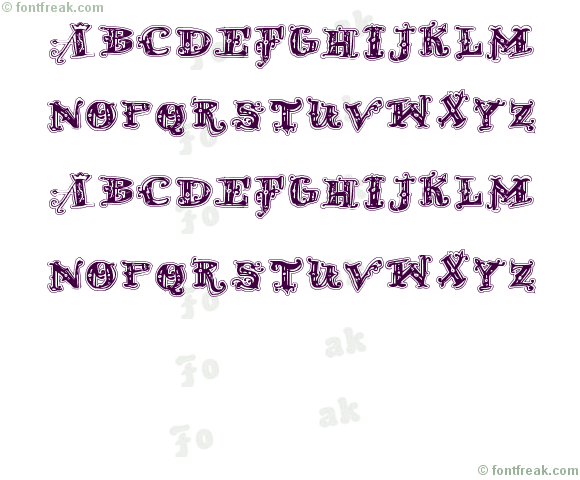
D_OLD MODERN 2
D_OLD MODERN
About D_OLD MODERN 2
D_OLD MODERN 2 is a distinctive decorative font created by Douglas Vitkauskas in 2005, designed to capture attention with its unique aesthetic. This font belongs to the decorative category, characterized by its playful and artistic flair. It features a bold stroke weight with a high contrast that gives it an eye-catching presence. The lettering exhibits an intricate design, embellished with ornate details that lend a vintage charm while maintaining a modern twist. The spacing between characters is thoughtfully arranged, ensuring readability while allowing the decorative elements to shine.
This font is versatile and can be used in various creative projects. It is particularly well-suited for wedding invitations, where the elegant and whimsical style can add a personal touch to the event. Additionally, D_OLD MODERN 2 is perfect for movie posters, as its distinctive look can help convey the theme and mood of the film effectively. Restaurant menus can also benefit from this font, giving a unique identity to the dining experience, especially for establishments that want to communicate a sense of creativity and flair. Graphic designers and content creators will find this font appealing for branding projects, especially for those targeting an audience that appreciates artistic design.